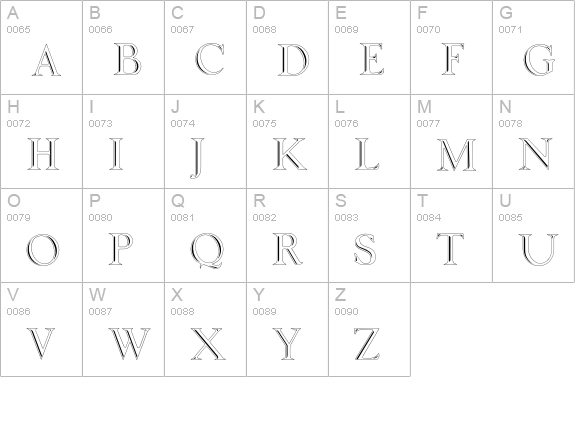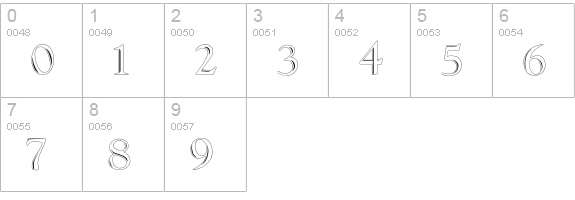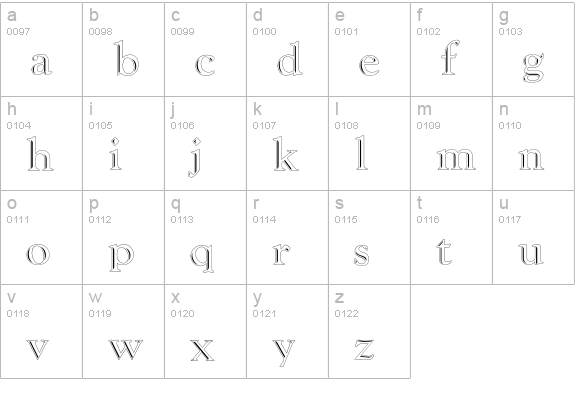
LibertyOutline Font Details
The LibertyOutline font exudes a sense of freedom and creativity with its bold and dynamic outline design. This font is perfect for making a statement and adding a touch of modernity to any project. The clean lines and sleek curves of LibertyOutline make it versatile for a wide range of design applications, from branding to packaging to digital media. What sets LibertyOutline apart is its seamless balance between elegance and edge, making it a standout choice for those looking to add a contemporary flair to their designs. Whether you're creating posters, logos, or social media graphics, this font is sure to make a striking impression. Best of all, LibertyOutline is available for free download at FontsMarket.com, making it easily accessible for designers and creatives looking to elevate their work without breaking the bank. Embrace the freedom of expression with LibertyOutline and take your designs to the next level.